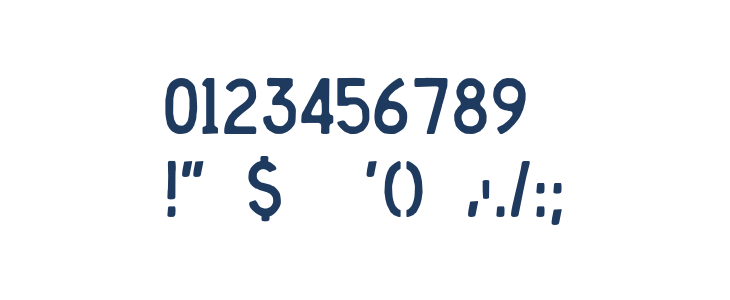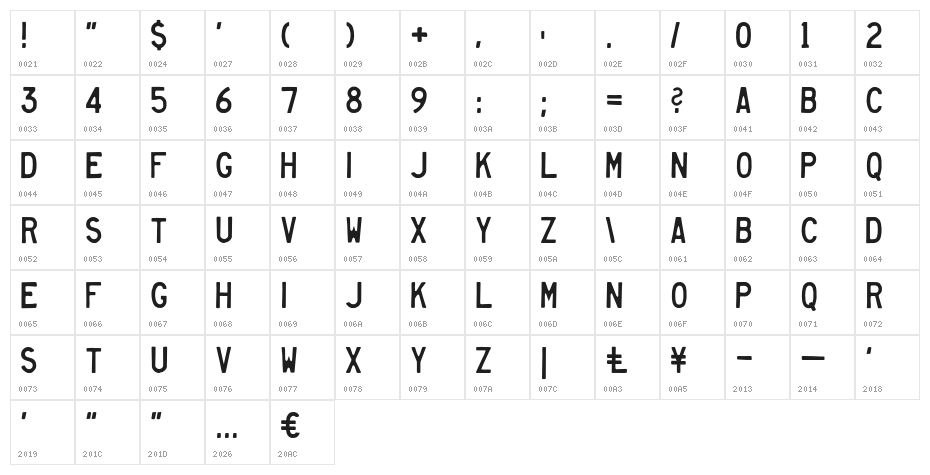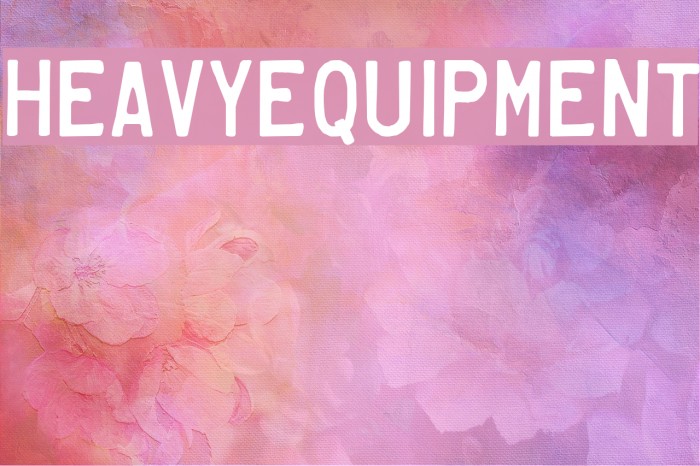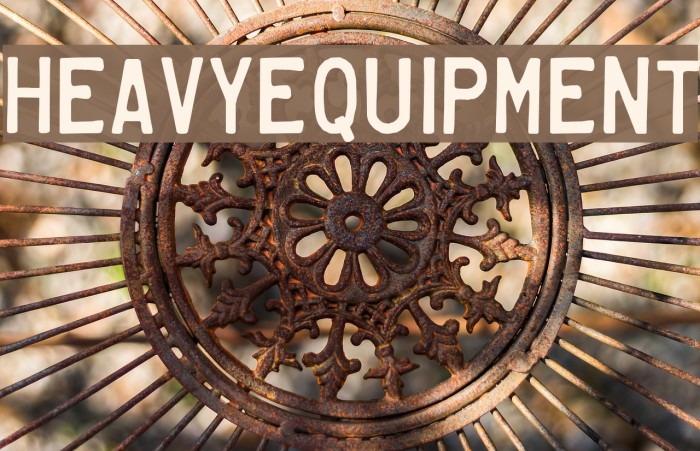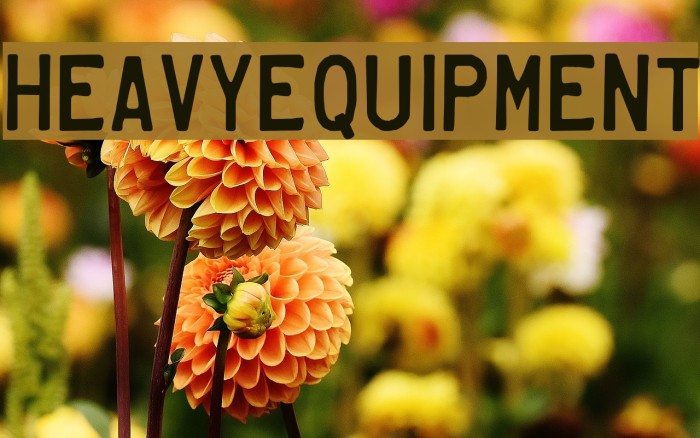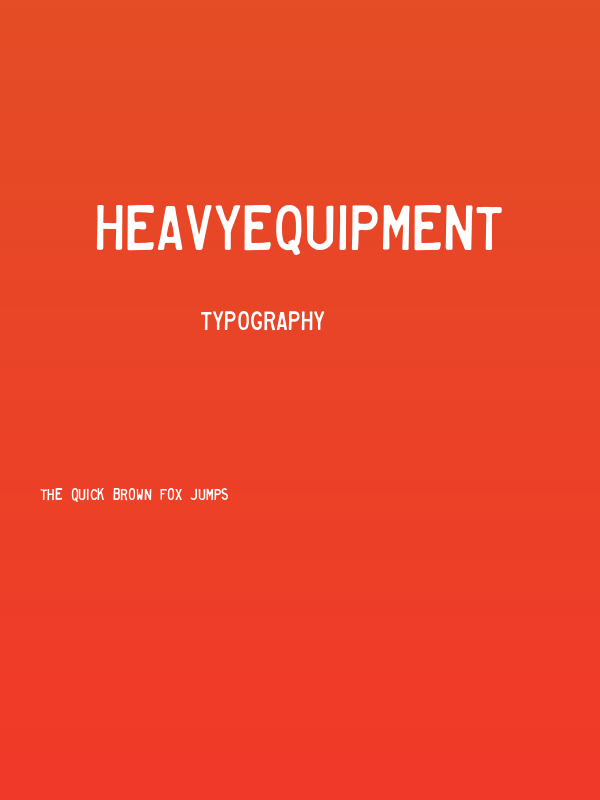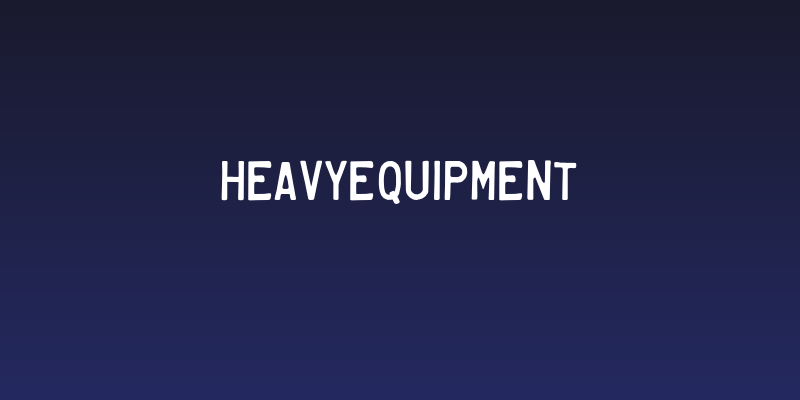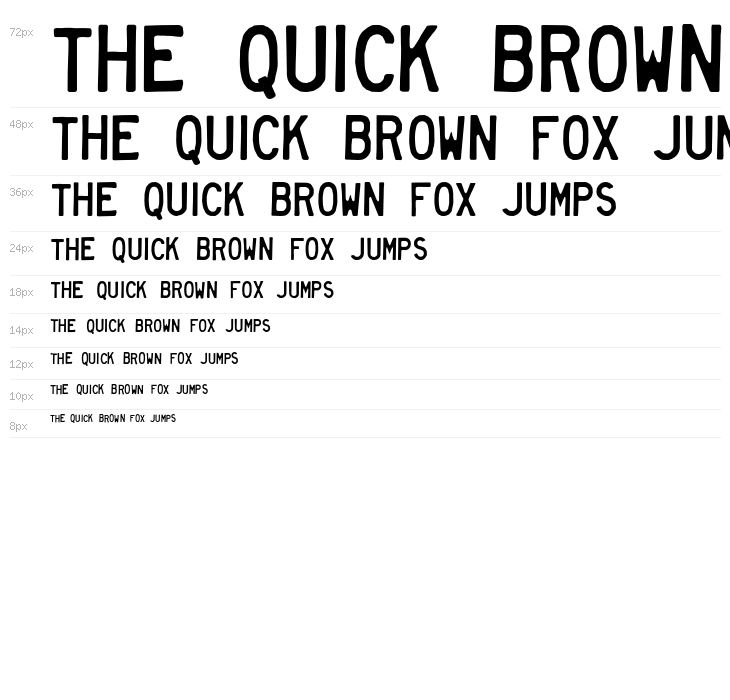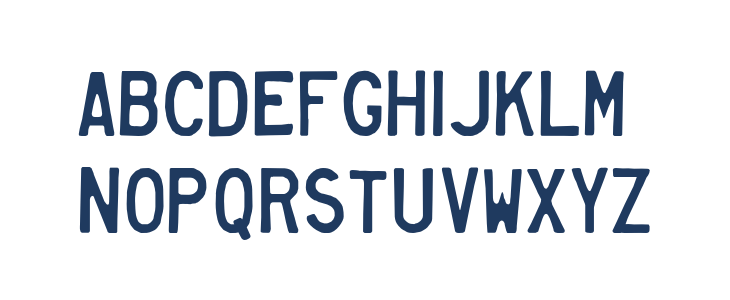
HeavyEquipment Font
HeavyEquipment Description
This font features a bold, industrial style with a strong presence. The characters are uniformly thick, giving a sense of robustness and durability. The uppercase letters are slightly condensed, while the lowercase letters maintain a consistent height, ensuring readability. The numerals are clear and straightforward, matching the overall boldness of the font. Special characters are designed to complement the alphanumeric characters, maintaining the same weight and style. This font is ideal for projects that require a strong, impactful visual statement.
| Overall Style | Industrial |
| Use Case | Headlines, Logos, Signage |
| Proposed Projects | Ideal for signage, branding, posters, and any design requiring a bold statement. |